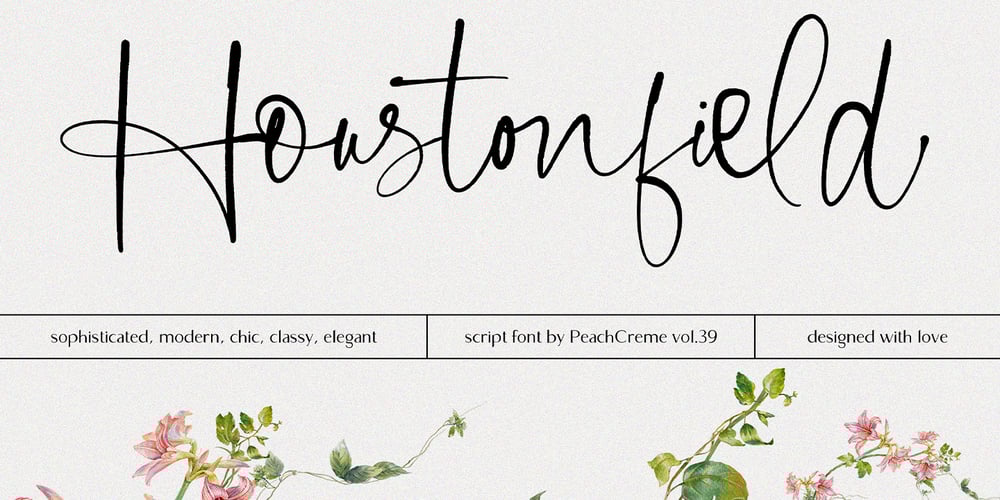
Houstonfield Font Family was designed by Gulya Yeap and published by PeachCreme. Houstonfield contains 1 styles and family package options. Houstonfield is not another script font suitable for any project. Add a touch of luxe and elegance to your project. This font is perfect for signature logos, modern invitation, wine labels and many more. Swipe the preview to get some inspiration.If you have any other questions, feel free to drop me a message:)Happy designing,Gulya